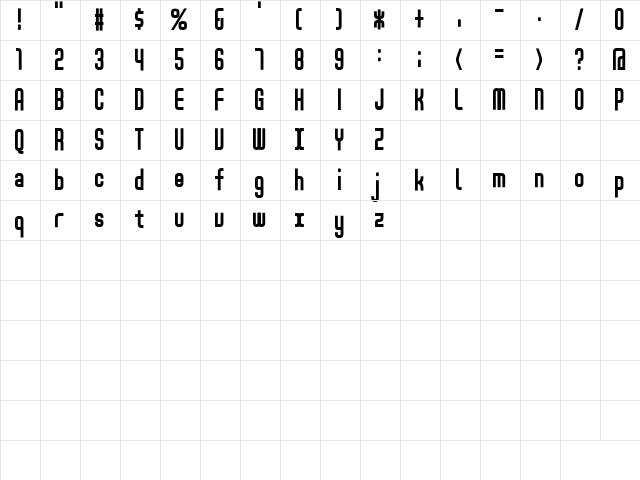
D3 Smartism TypeA Regular
Design Context for D3 Smartism TypeA
D3 Smartism TypeA is a composed and adaptable typeface that performs quietly and consistently across a wide range of design contexts.
Pro Tip: Use D3 Smartism TypeA in both headline and body roles to test its range before committing to a single application.